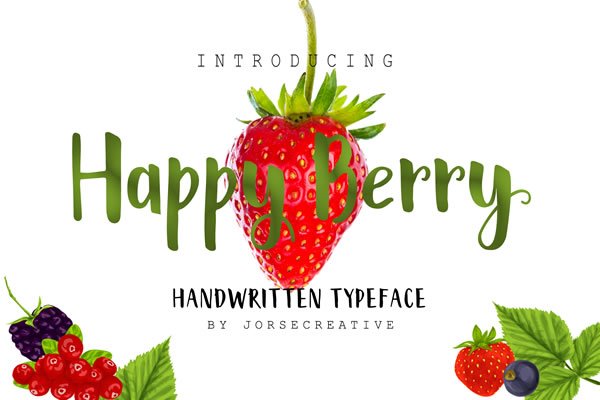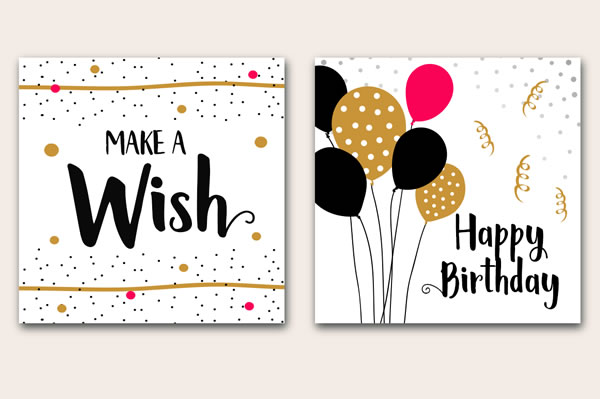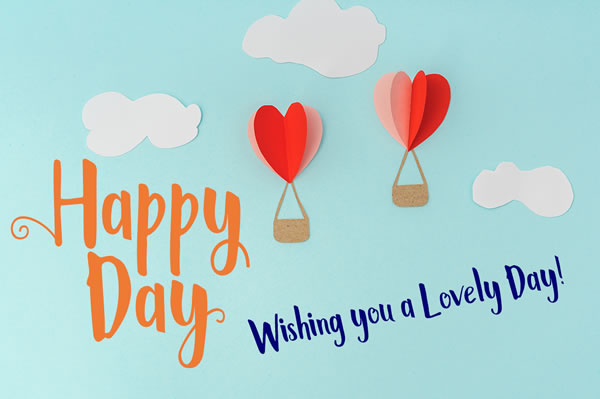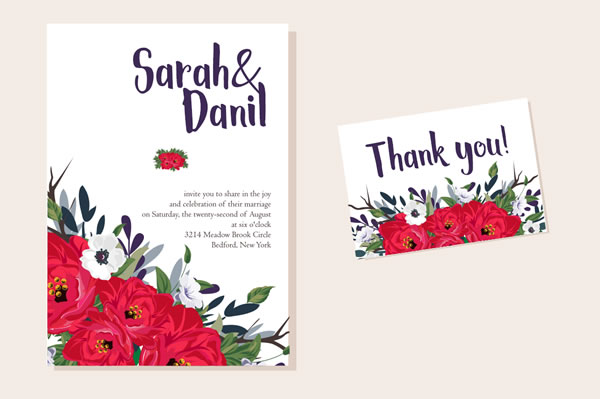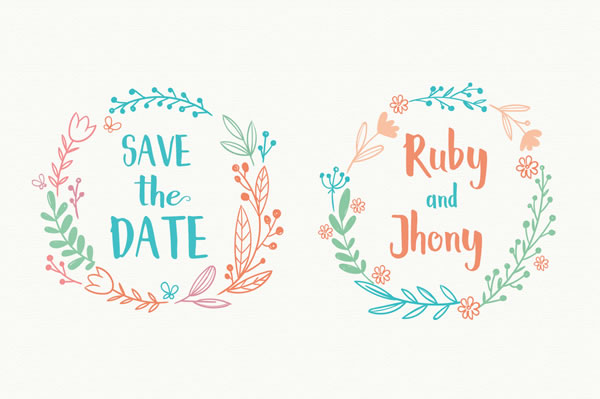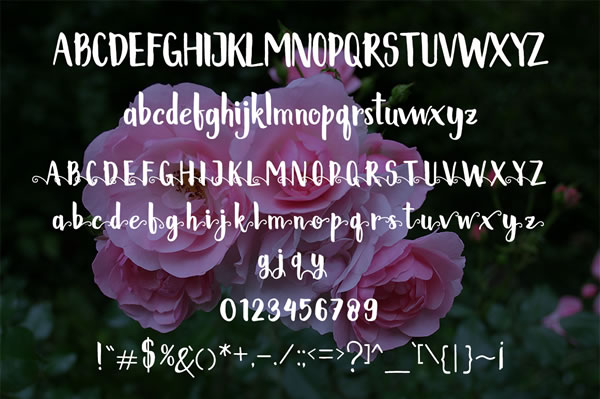
The Joy of Typography: Discovering the Happy Berry Font
Have you ever been brainstorming a project and suddenly, the perfect font pops into your mind? For many designers, that moment is pure magic. It’s the moment when everything clicks, and the creative wheels start turning. For me, that moment came when I stumbled upon the Happy Berry Font. Created by the talented JorseCreative, this font is a true delight for the eyes.
Happy Berry Font is more than just a font – it’s an experience. Its playful, thick letters make it easy to read, and the alternate characters with swashes add an extra touch of whimsy. Whether you’re designing a children’s book, a food blog, or a fun advertisement, Happy Berry Font is sure to bring a smile to your audience’s face.
For designers, Happy Berry Font is a valuable tool in our arsenal. Its versatility and charm make it perfect for a wide range of projects, and its ease of use ensures that even the most complex designs are a breeze to create.
Key Features of Happy Berry Font
- Font Style: Handwritten, Casual
- Font Size: 1000 glyphs, including uppercase, lowercase, numerals, and special characters
- Resolution: High-resolution fonts for print and digital use
- Unique Characteristics: Whimsical, playful, and elegant, perfect for creative and personal projects
Happy Berry Font Review
As a designer, I was excited to try out the Happy Berry Font. Overall, I’d say it’s a solid choice for those looking for a fun and playful font. ✨ The font does a great job of capturing a cheerful vibe, making it perfect for projects that need a bit of whimsy.
- ✨ The font’s rounded edges and soft curves give it a friendly feel that’s hard to resist.
- ✨ The font’s size and weight options make it versatile and easy to use in a variety of contexts.
- ✨ The font’s character set is extensive, with a wide range of symbols and glyphs to choose from.
- ⚠️ The font’s consistency can be a bit off at smaller sizes, with some letters appearing slightly misaligned.
- ⚠️ The font’s bold weight can feel a bit too bold at times, overpowering the surrounding text.
Overall, I’d say the Happy Berry Font is a great choice for designers who need a fun and playful font. While it’s not perfect, its strengths outweigh its weaknesses, making it a solid addition to any design toolkit.
Happy Berry Font is ideal for creating playful and whimsical designs, such as:
- Children’s book covers
- Party invitations
- Food blog graphics
Remember to use the font in moderation and balance it with other design elements to avoid overwhelming the viewer.
Alternatives to Happy Berry Font
Great Vibes Font is a beautiful, handwritten font perfect for creating a fun and playful atmosphere. It is ideal for use in invitations, social media posts, and advertisements that require a carefree and youthful tone.
Great Vibes Font is more elegant and refined compared to Happy Berry Font, with a more subtle and nuanced feel. It’s a great choice for designers who want to add a touch of sophistication to their designs.
Cream Soda Font is a whimsical, cursive font that adds a touch of nostalgia and charm to any design. It’s perfect for use in branding, packaging, and advertising materials that require a vintage or retro feel.
Cream Soda Font has a more casual and laid-back feel compared to Happy Berry Font, with a softer and more rounded appearance. It’s a great choice for designers who want to create a relaxed and approachable atmosphere.
Lobster Font is a bold, cursive font that’s perfect for creating a dramatic and eye-catching effect. It’s ideal for use in headlines, titles, and other display text that requires a lot of emphasis.
Lobster Font is more dramatic and attention-grabbing compared to Happy Berry Font, with a bolder and more exaggerated feel. It’s a great choice for designers who want to add a sense of excitement and energy to their designs.
Carolyna Pro Font is a modern, handwritten font that’s perfect for creating a sleek and sophisticated look. It’s ideal for use in branding, packaging, and advertising materials that require a high-end and luxurious feel.